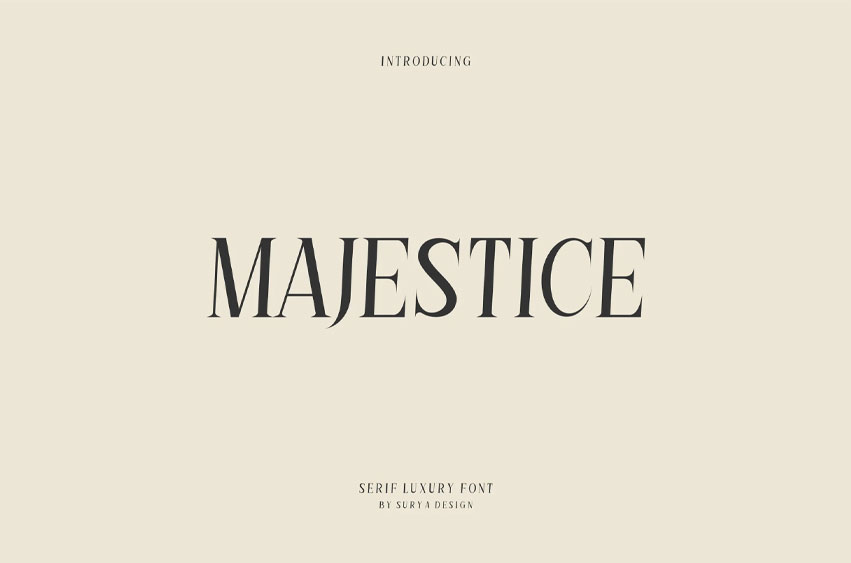
Majestice Font
Majestice Font Modern Font is a bold and authentic display font. The font is suitable for any branding project, like logos, esports, and many more.